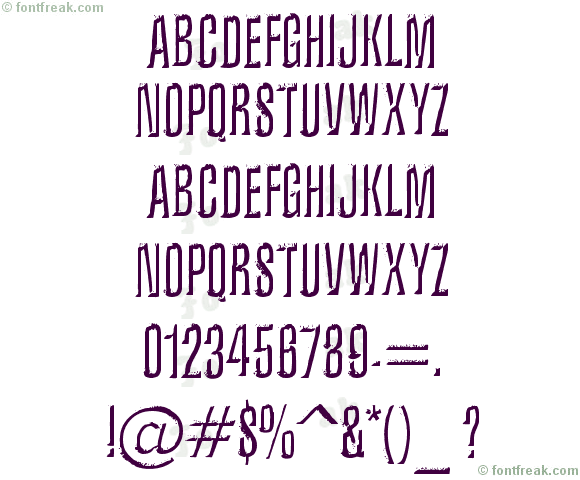
Iron Lung
About Iron Lung
The Iron Lung font by Cumberland is a striking display typeface that captures attention with its unique, bold aesthetic. Released as freeware in 2004 by S. John Ross, this font features a rugged, industrial style, making it a standout choice for various design projects. The font boasts a heavy stroke weight with minimal contrast, resulting in a solid and impactful appearance. Its uneven spacing and slightly distressed edges contribute to a raw, edgy vibe that is both modern and versatile.
Iron Lung is ideal for use cases that require a strong visual statement. It excels in creating eye-catching movie posters, where its boldness can convey drama and intensity. Additionally, it’s perfect for branding elements in small businesses, particularly those in the arts, music, or food sectors, where a unique identity is essential. The font also shines in graphic design projects like album covers and promotional materials, adding an element of personality that resonates with audiences. Furthermore, it can be effectively utilized in signage for events or venues, ensuring that messages stand out in a crowded environment.
What sets the Iron Lung font apart is its ability to blend a contemporary aesthetic with a gritty, handcrafted feel. This combination makes it more than just a typeface; it’s a tool for storytelling that invites viewers to engage with the message on a deeper level. For those looking to make a memorable impression, the Iron Lung font free download offers an exceptional choice for bold, creative expression.